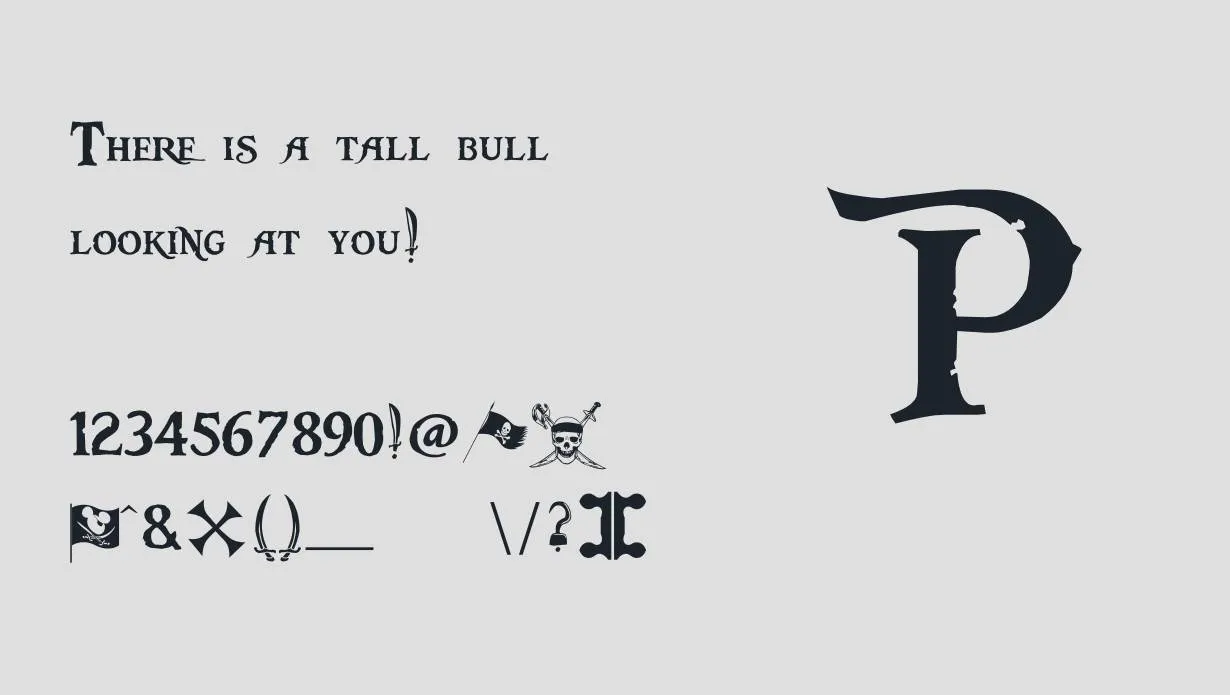
Pieces of Eight has a bold and thematic design that falls into the category of a decorative and themed font. It embodies a pirate aesthetic through its rugged and stylized letterforms.
It finds its place in projects seeking a bold and adventurous touch, such as pirate-themed designs, adventure book covers, and those aiming to evoke a vintage and nostalgic atmosphere. The unique visual appeal of Pieces of Eight makes it well-suited for creative endeavors with a distinct theme.
| Designer | Steve Ferrera |
| Style | Gothic |